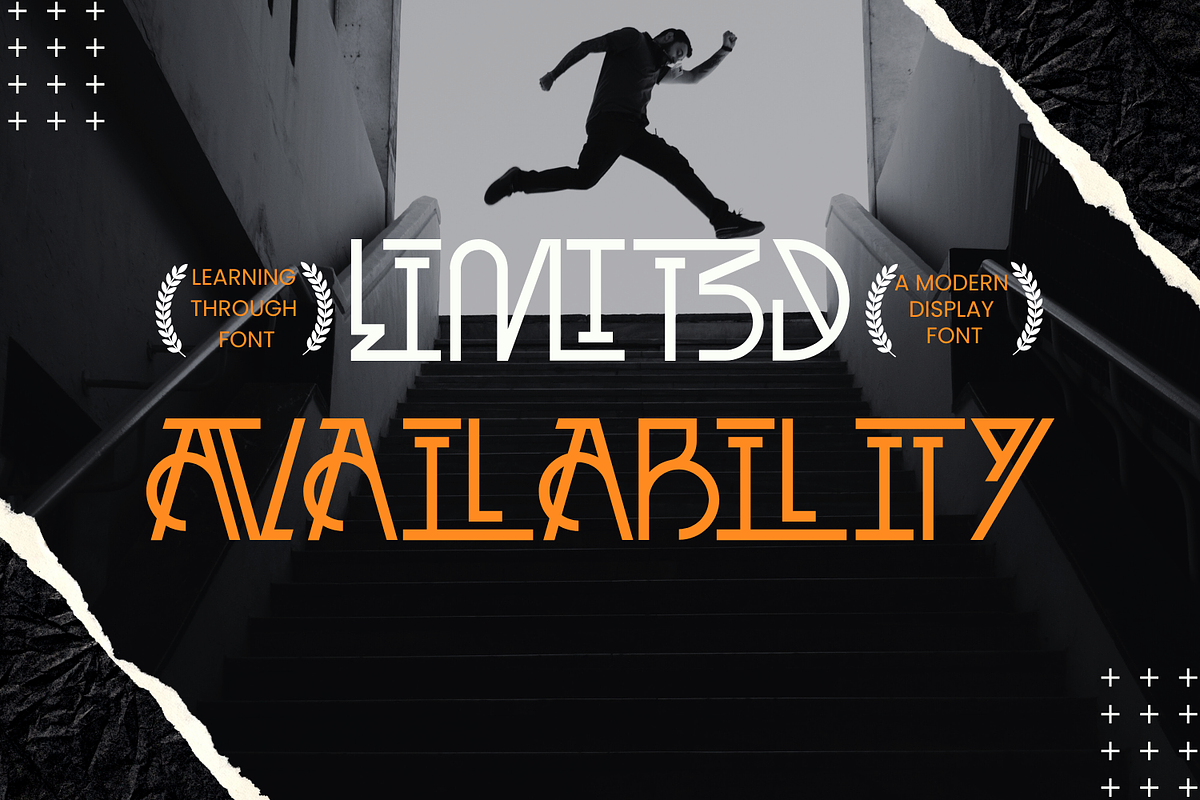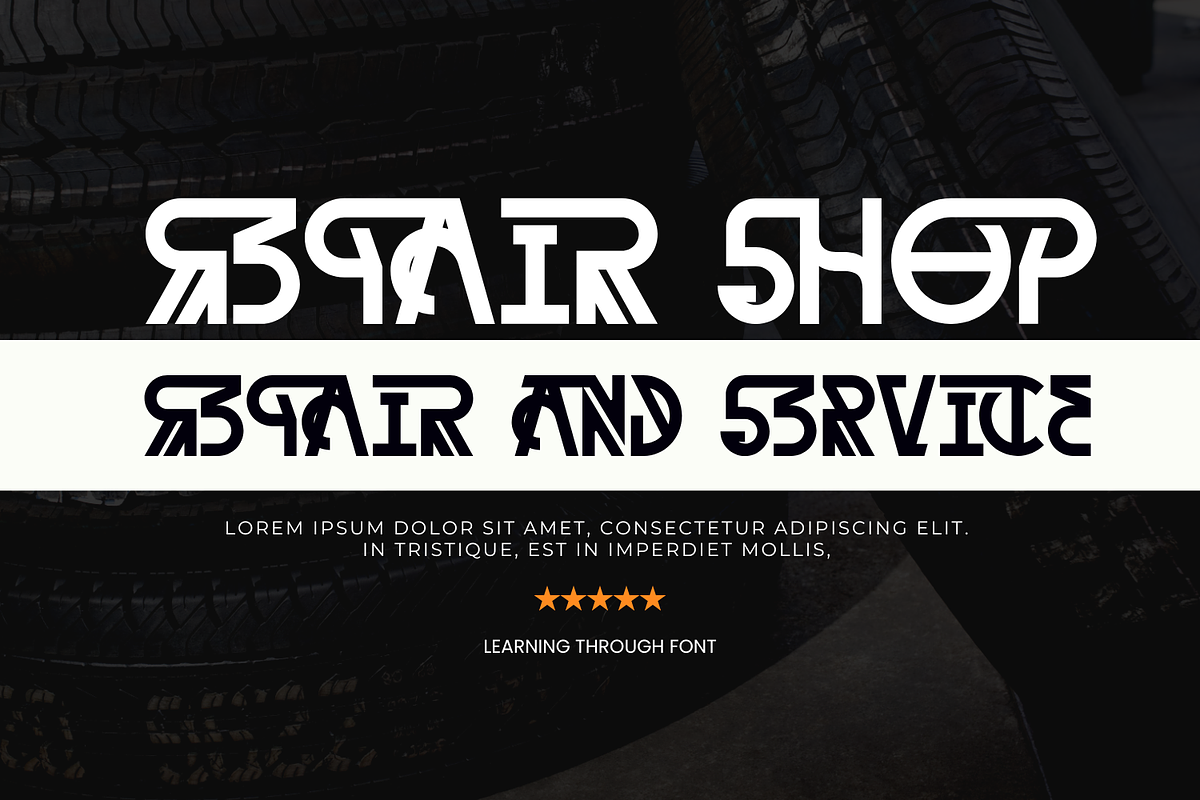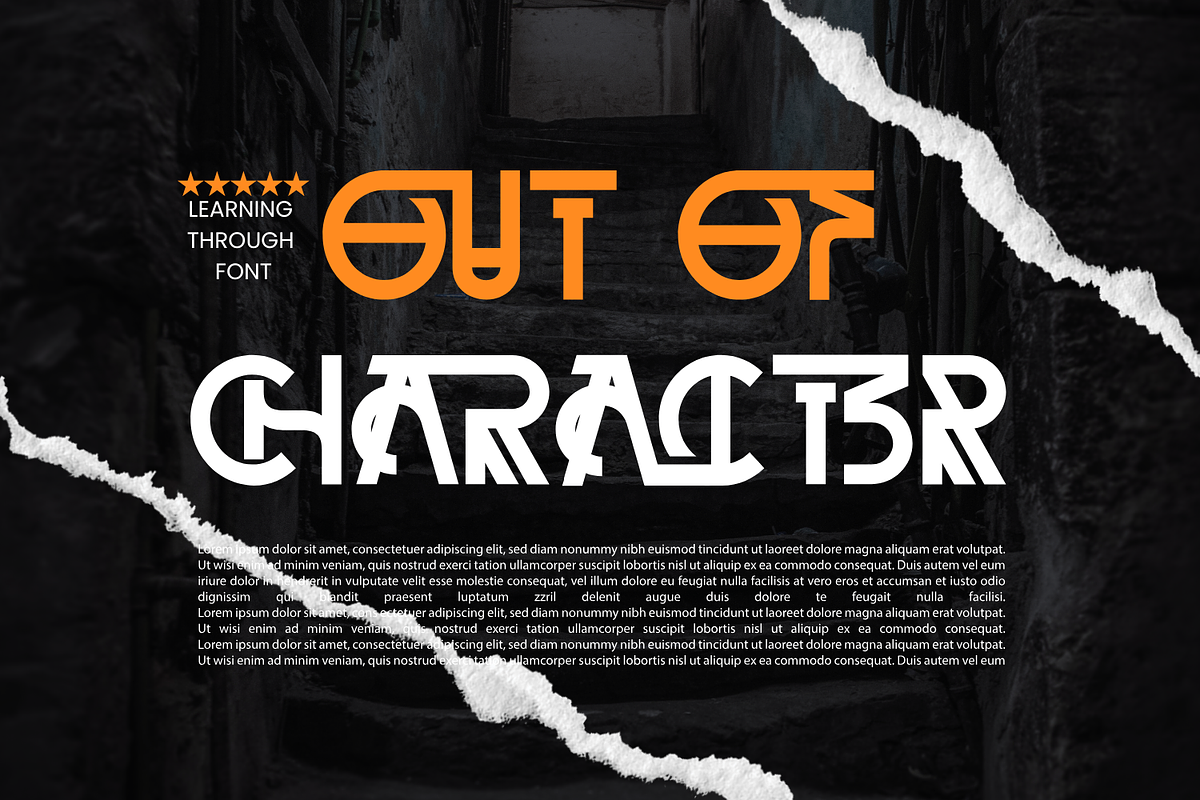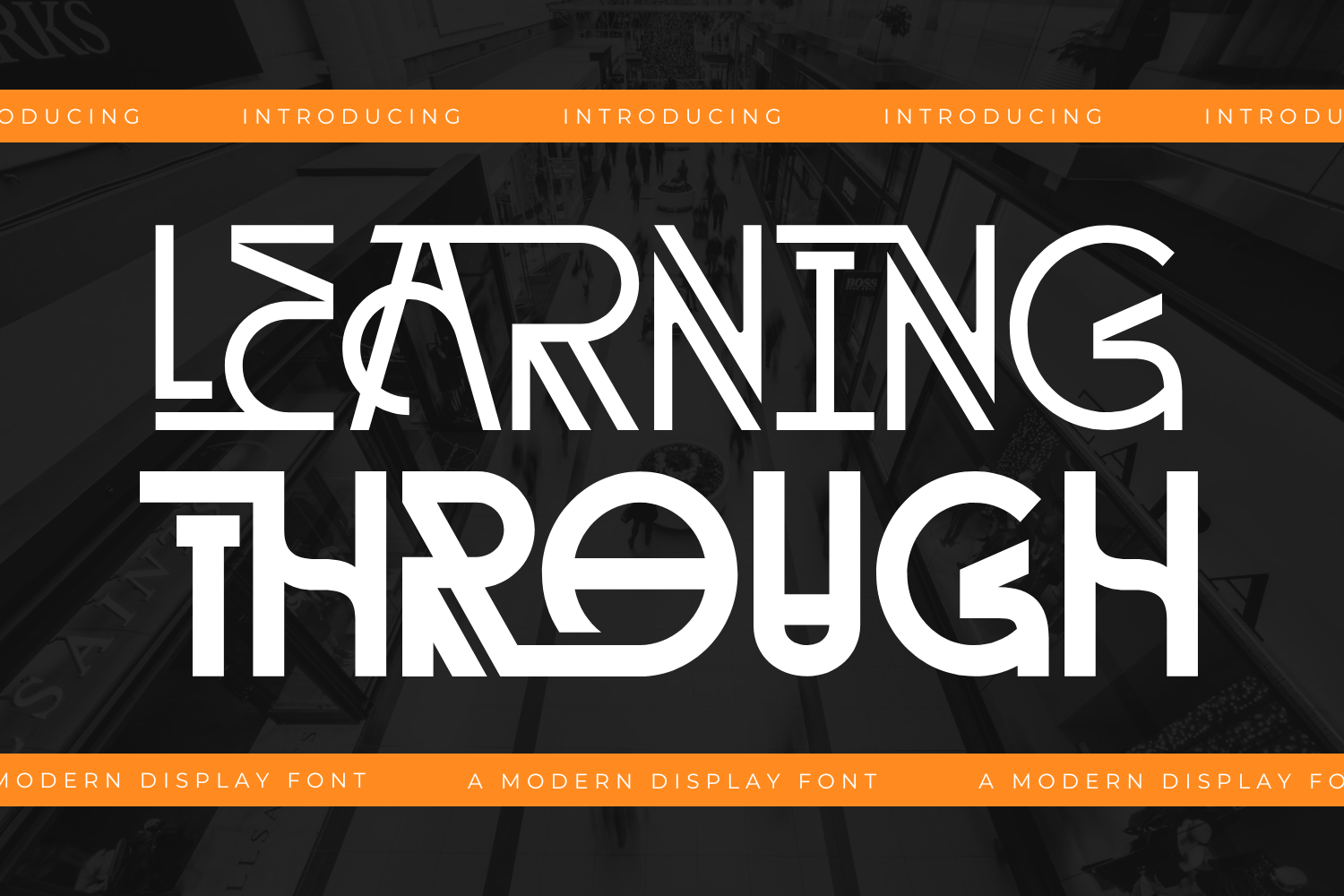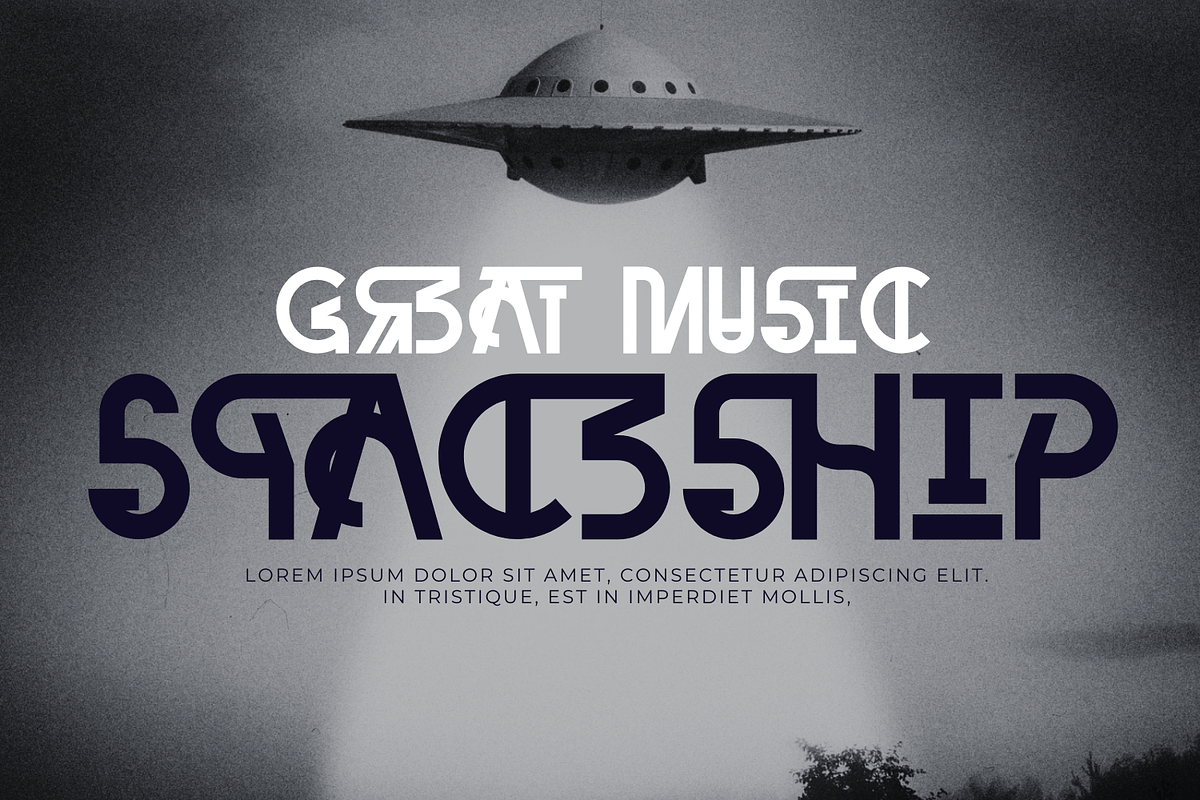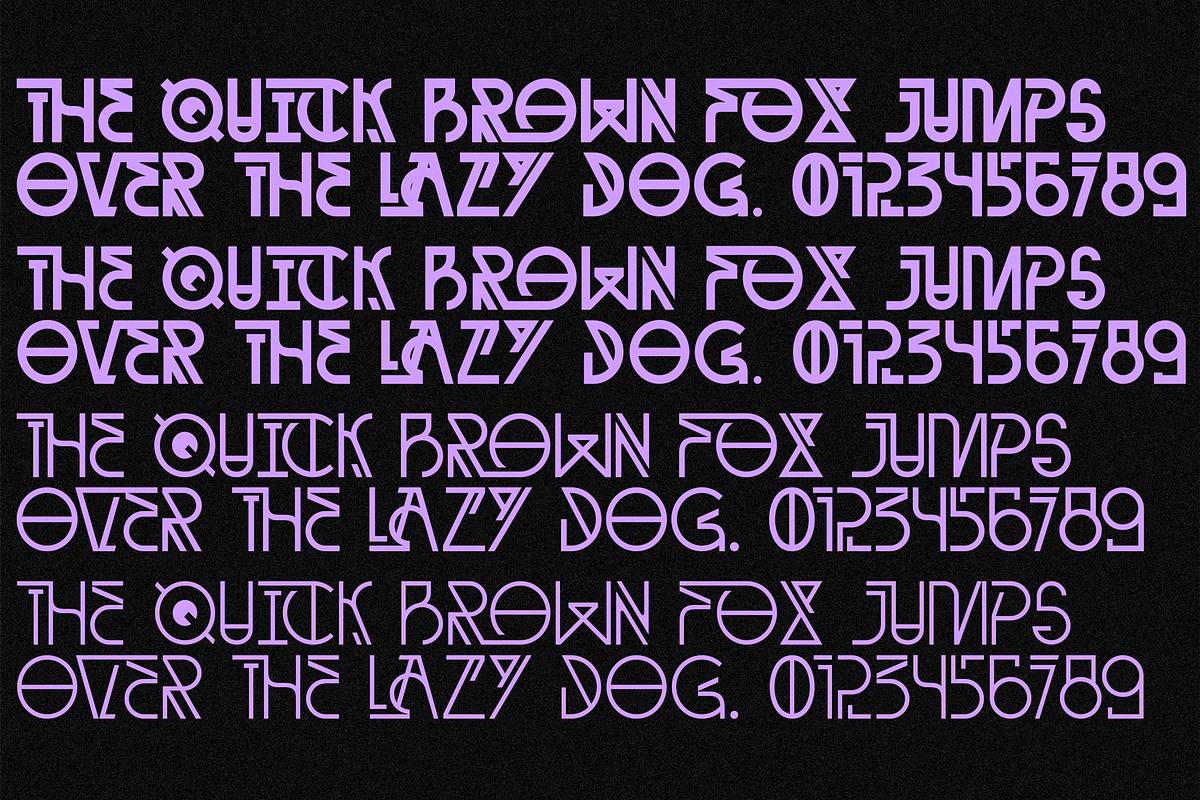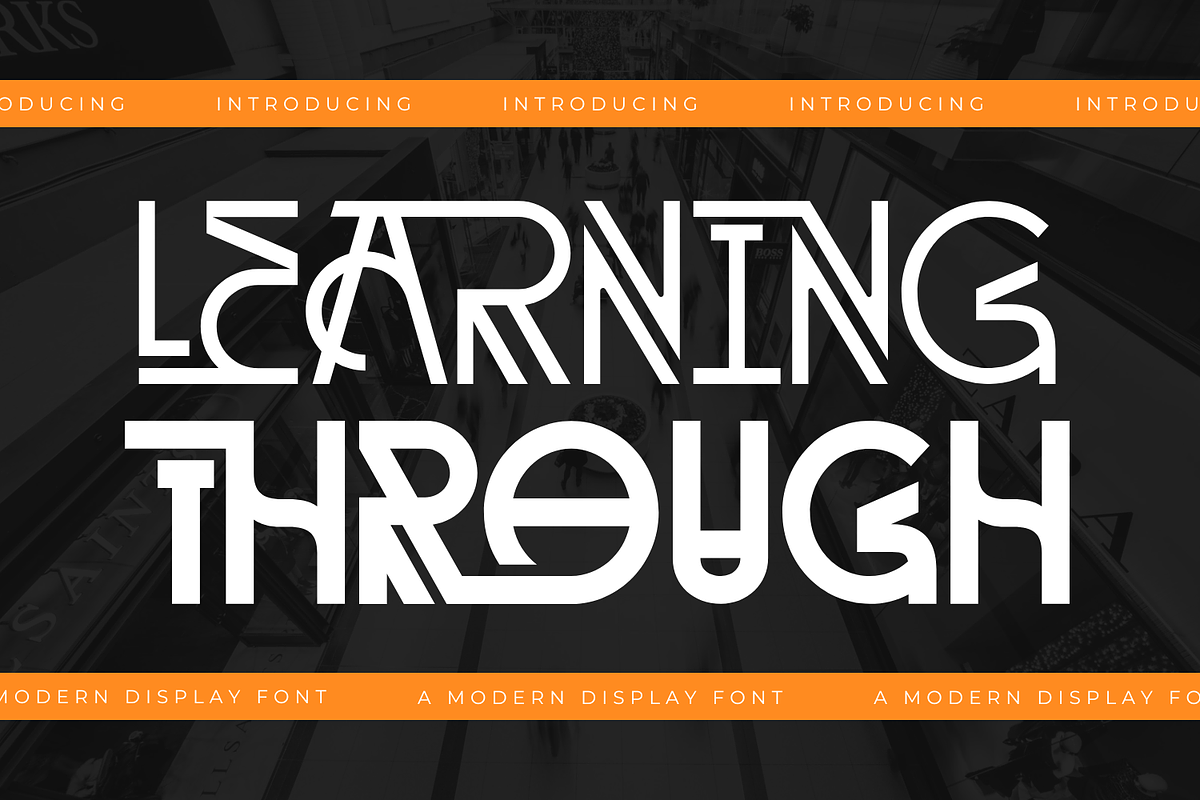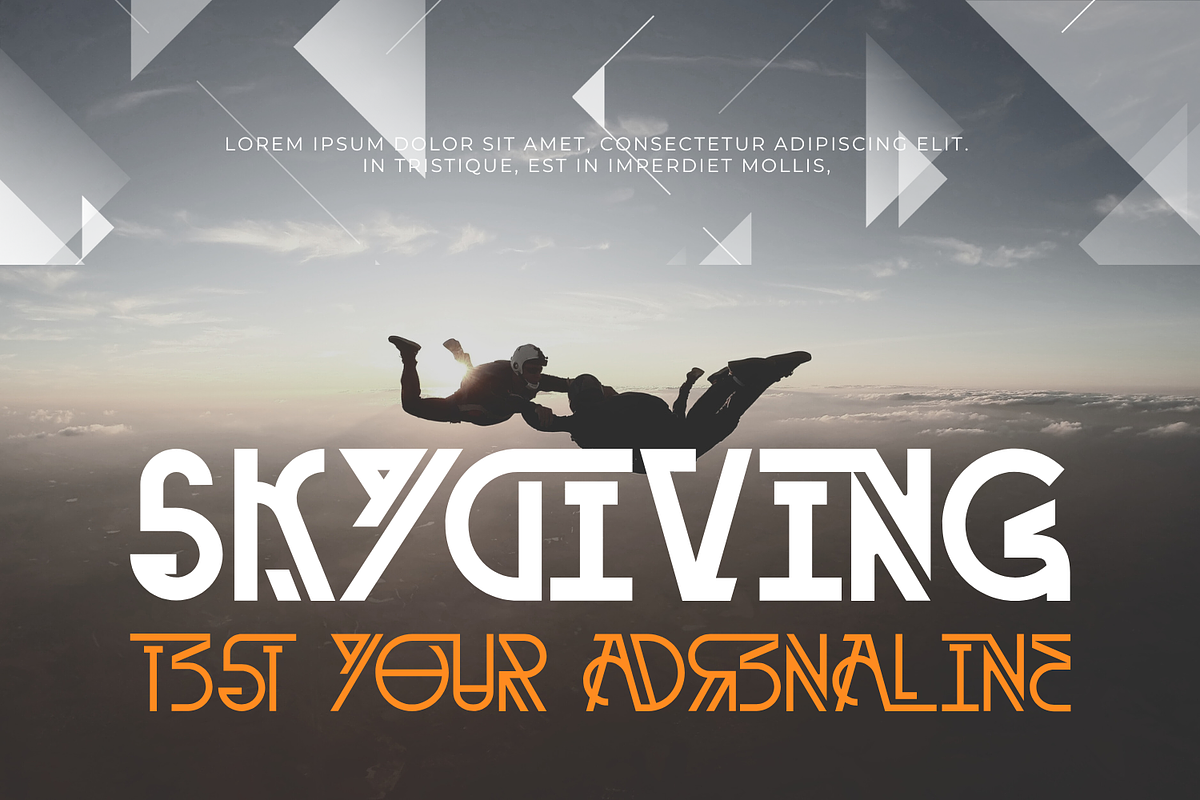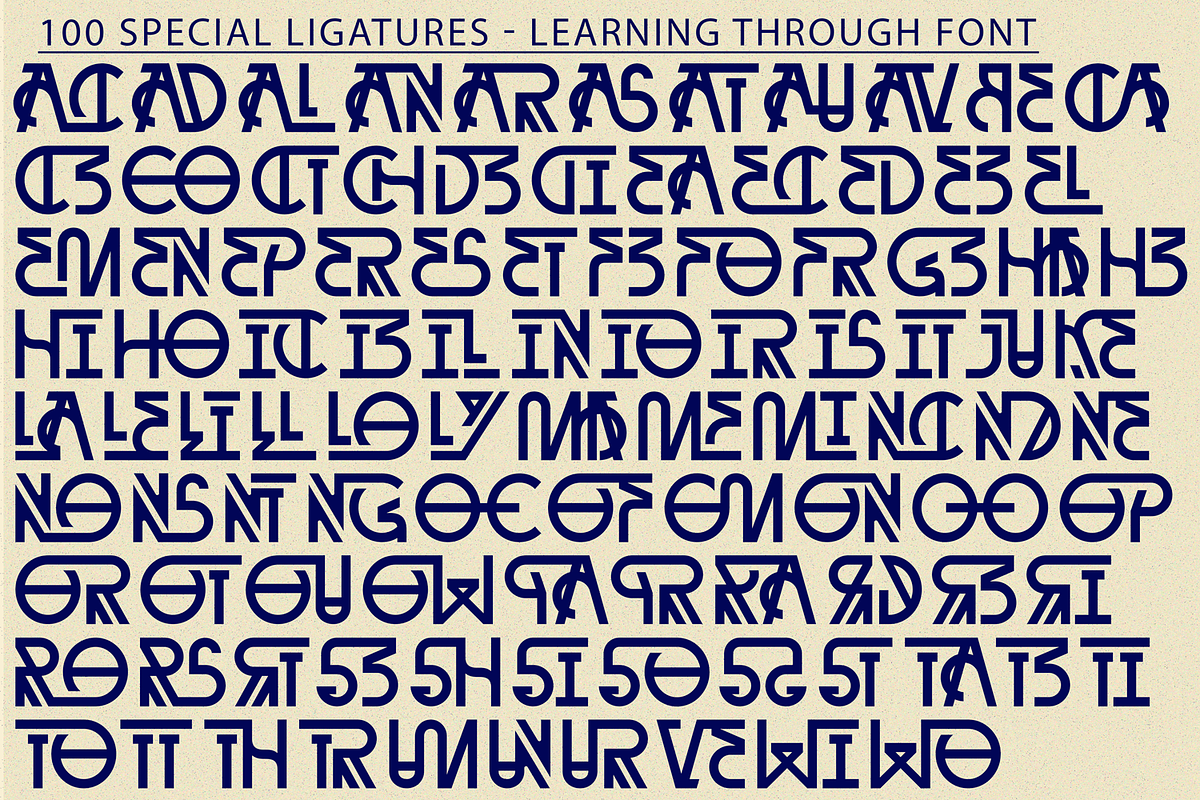
Learning Through - Art Deco Font
Learning Through Font - Elegance Redefined, Art Deco Reimagined. The distinguishing features of the style are simple, clean shapes, often with a “streamlined” look; ornament that is geometric or stylized from representational forms. Suitable for any projects such as: logos, branding projects, homeware designs, product packaging, mugs, quotes, posters, shopping bags, t-shirts, book covers, name card, invitation cards, greeting cards, label, photography, watermark, special events, and all your other luxury and beautiful projects that need a Luxury Serif taste.
Learning Through was built with OpenType features and includes 100 ligatures, alternate, numbers, punctuation, and it also supports other languages.
AC AD AL AN AR AS AT AU AV BE CA CE CH CO CT DE DI EA EC ED EE EL EM EN EP ER ES ET FE FO FR GE HA HE HI HO IE IC IL IN IO IR IS IT JU KE LA LE LI LL LO LY MA ME MI NC ND NE NG NO NT NS OC OF OM ON OO OP OR OT OU OW PA PR RA RD RE RI RO RS RT SE SH SI SO SS ST TA TE TH TI TO TR TT UM UN UR VE WI WO
- Uppercase letters
- Special Ligatures